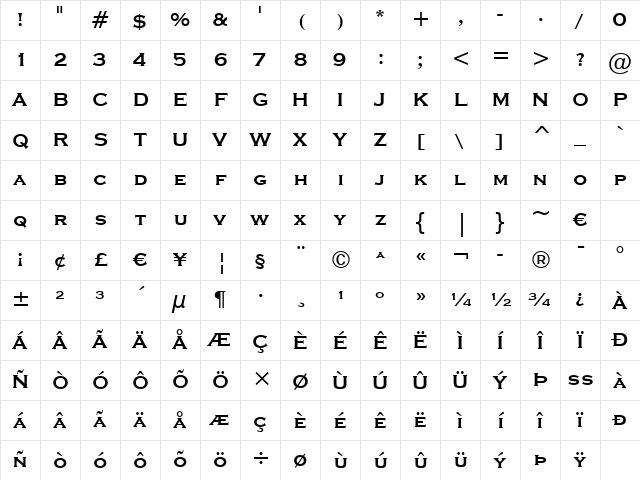
CopprplGoth Bd BT Bold
CopprplGoth Bd BT Family
Complete CopprplGoth Bd BT Bold glyph index. Displaying only characters natively supported by CopprplGoth Bd BT Bold font.
Design Context for CopprplGoth Bd BT
CopprplGoth Bd BT is a composed and adaptable typeface that performs quietly and consistently across a wide range of design contexts. Its bold stroke weight gives it real presence on the page.